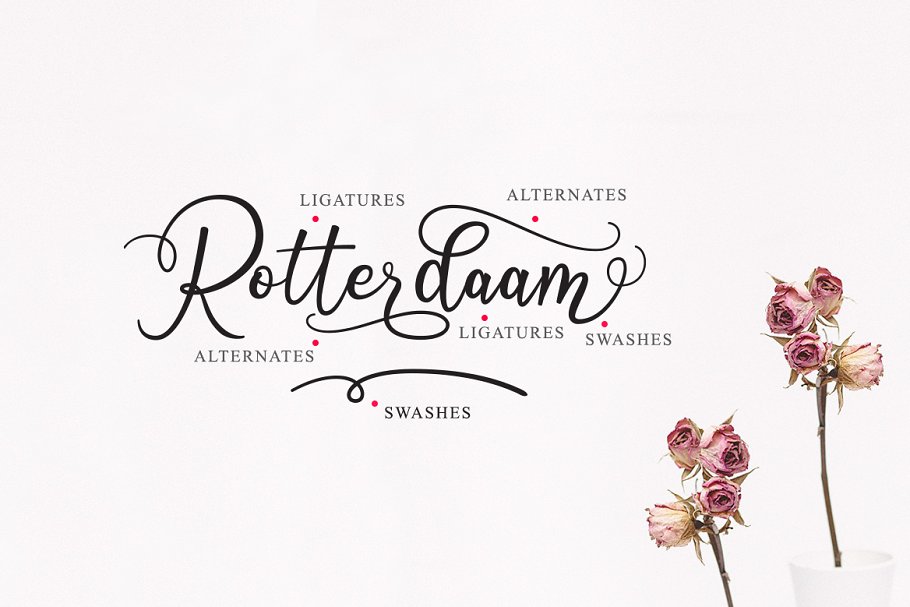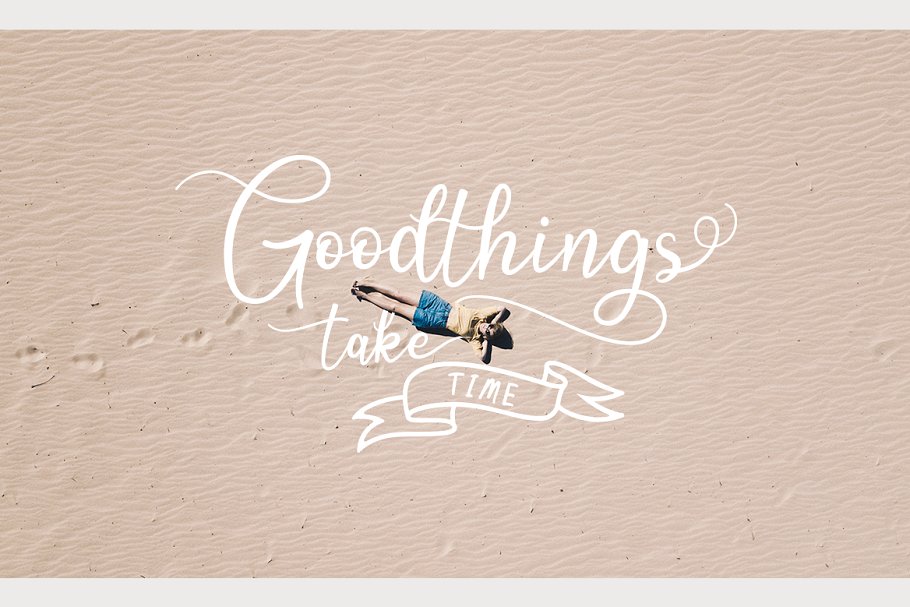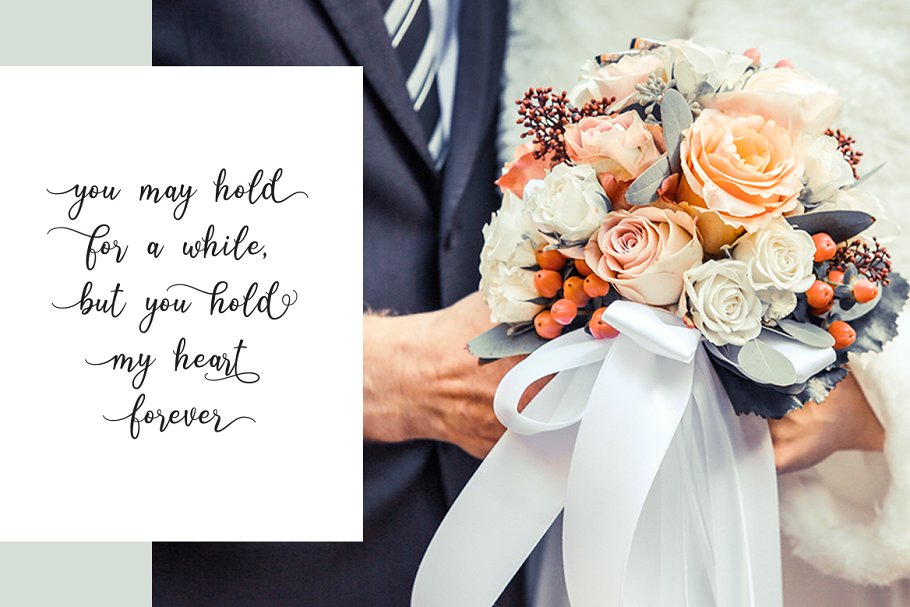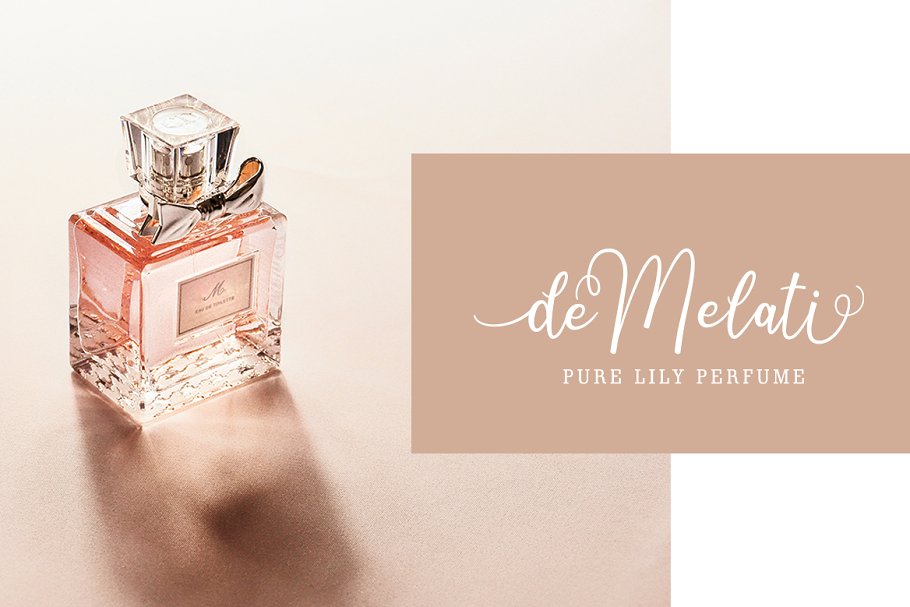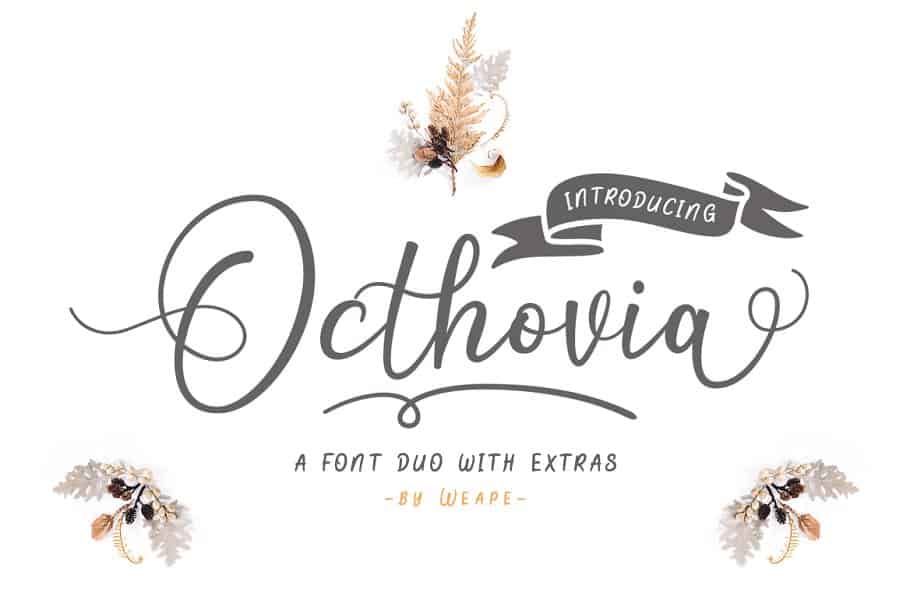
Octhovia Font Duo
Hi designer. A font duo with extras. Smooth and refined font lines perfectly convey the calmness of handwriting. We’d like to present you the new font called Octhovia Script Font. A pair font with a touch of modern calligraphy and illustrations are useful to beautify every sentence written. Octhovia is built with opentype features with additional swash at the beginning and end, alternative letters, and ligatures so it makes it look natural as written by hand.